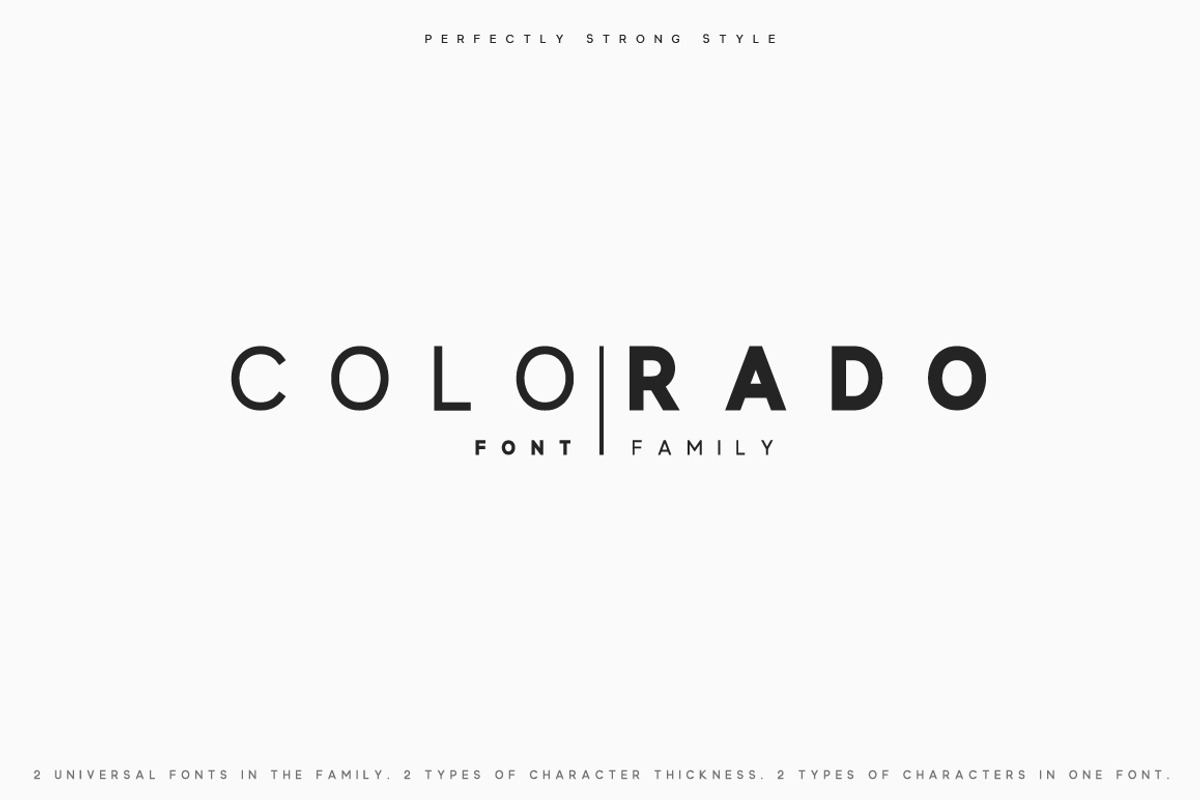
The Colorado | Sans Serif Family Font Free Download is a sleek and versatile sans-serif typeface designed for modern design needs. Perfect for branding, editorial layouts, websites, logos, and social media graphics, this font family brings clean lines and contemporary elegance to your projects.
The Colorado family includes multiple weights and styles, from light to bold, providing great flexibility for both headings and body text. Its geometric design and excellent readability make it ideal for a variety of applications, both in print and digital formats.
With uppercase and lowercase letters, numbers, punctuation, and multilingual support, this font family ensures versatility across creative projects.